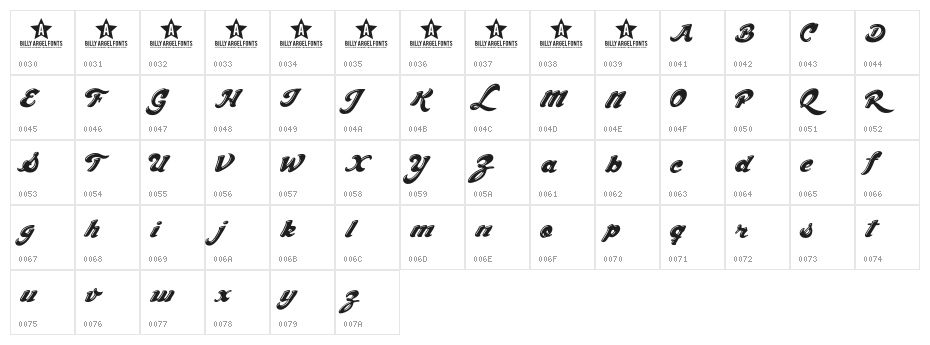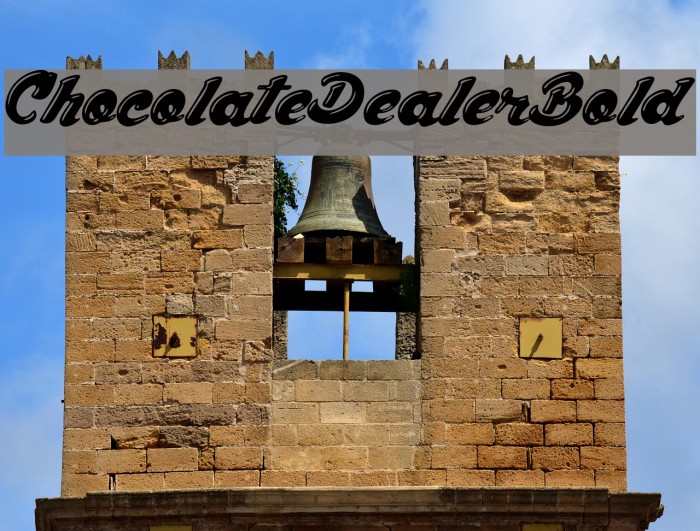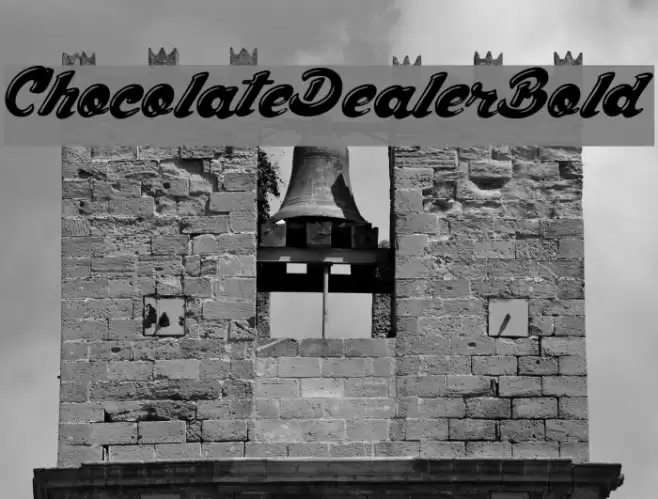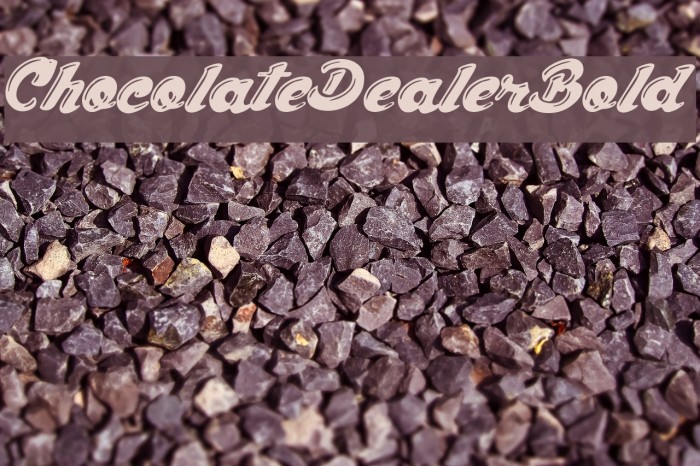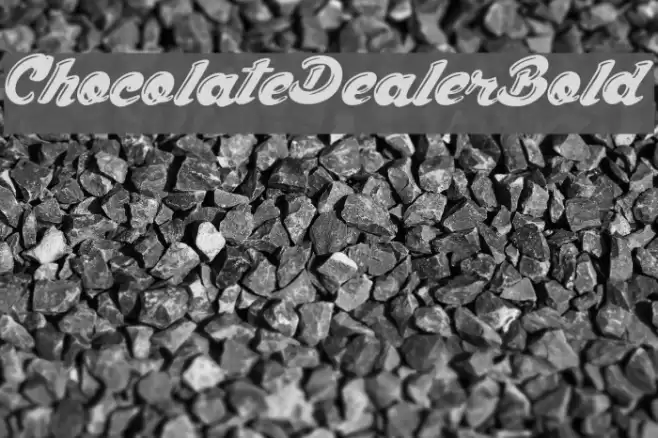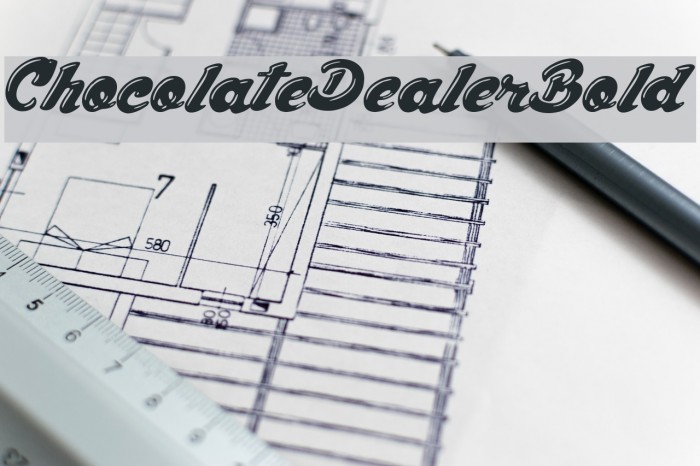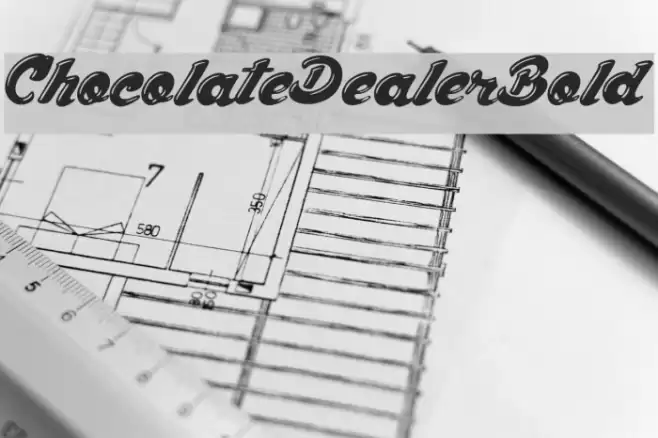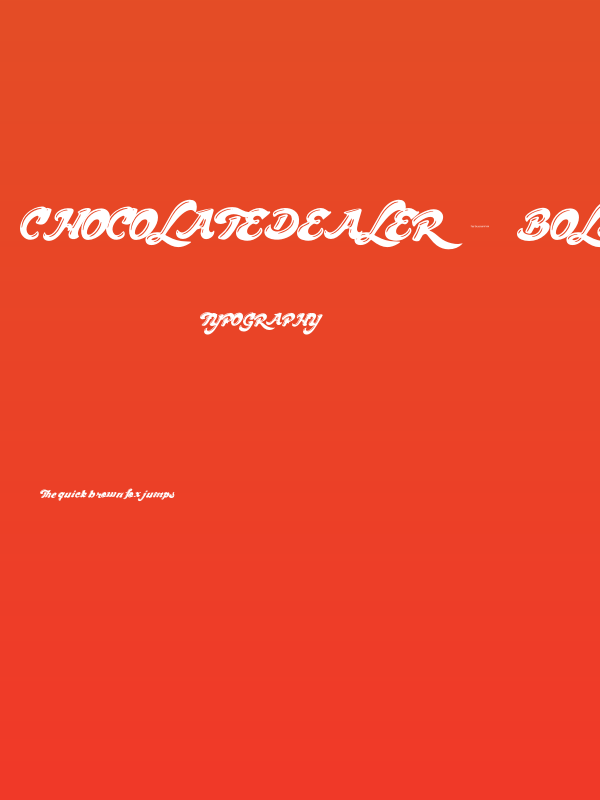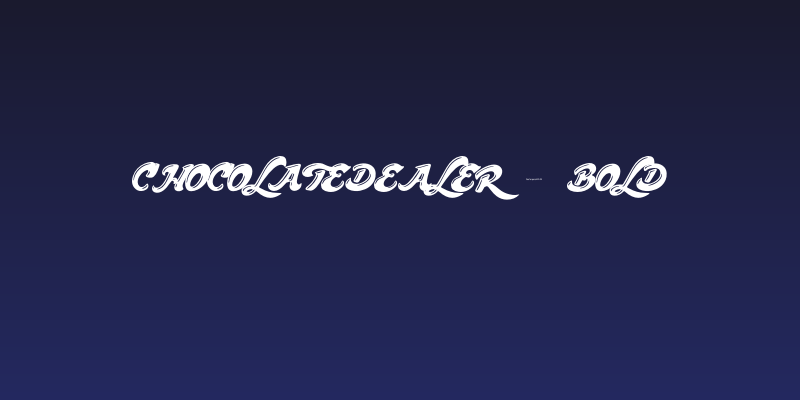
ChocolateDealer-Bold Font
ChocolateDealer-Bold Description
This font features a bold, cursive style with a strong emphasis on thick, flowing strokes that create a sense of movement and elegance. The uppercase letters are particularly striking, with exaggerated curves and loops that give them a dynamic appearance. The lowercase letters maintain this fluidity, offering a cohesive look across the alphabet. The font's design includes a shadow effect, adding depth and a three-dimensional quality. This makes it particularly eye-catching and suitable for designs that require a touch of sophistication and flair. The overall aesthetic is both modern and decorative, making it versatile for various creative applications.
| Proposed Projects | Ideal for branding, packaging design, event invitations, and poster headlines. |